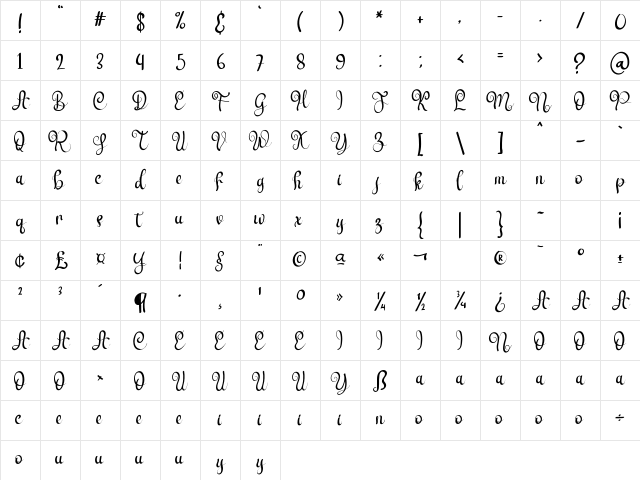
Young Wedding Regular Free Font
Young Wedding Regular
Designer: Nur Edi Prayitno
Design Context for Young Wedding
Young Wedding is a composed and adaptable typeface that performs quietly and consistently across a wide range of design contexts.